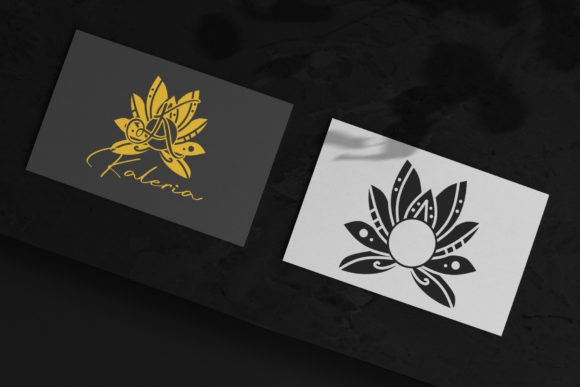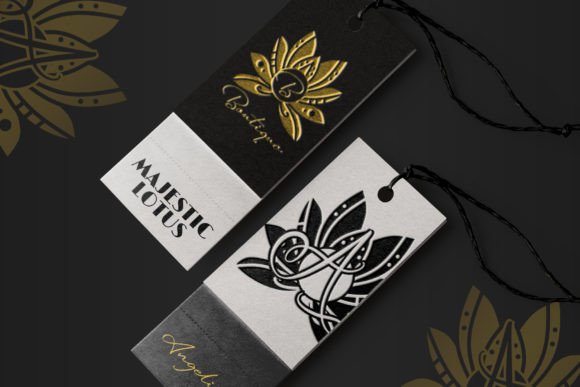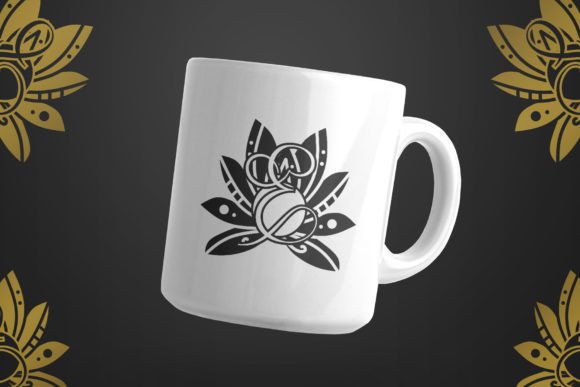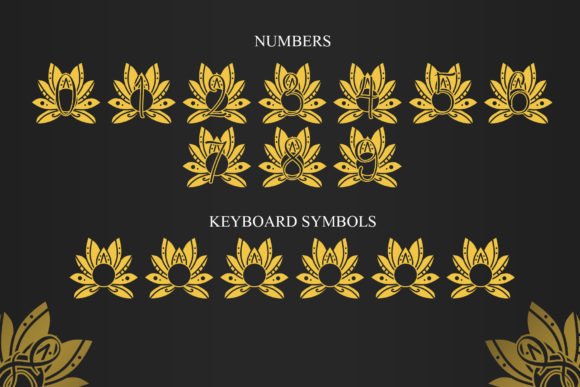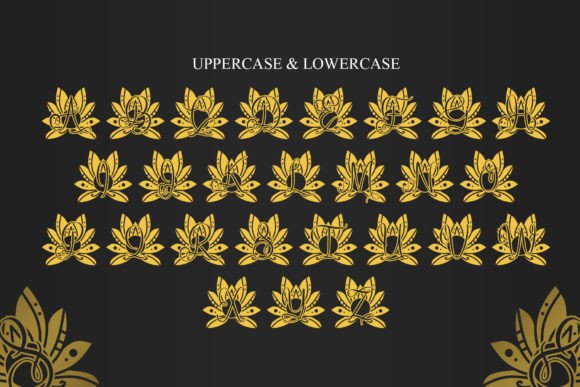
Introduction to Majestic Lotus Mandala Monogram Font Font
Fonts play a crucial role in design, and the Majestic Lotus Mandala Monogram Font font is a typeface that brings both character and versatility to any project. Whether you’re working on a branding project, a website, or a print design, the Majestic Lotus Mandala Monogram Font font offers a unique style that can elevate your work.
Majestic Lotus Mandala Monogram is a unique and stylish decorative font inspired by the elegance of the lotus flower.
Use it for your craft, logo, or anything you can think of .
Key Features of Majestic Lotus Mandala Monogram Font Font
Why Choose Majestic Lotus Mandala Monogram Font Font?
The Majestic Lotus Mandala Monogram Font font is more than just a typeface – it’s a design tool that helps you communicate your message with style and clarity. Its unique character set and versatile design make it suitable for a wide range of applications, from elegant invitations to bold headlines.
With its carefully crafted letterforms and balanced proportions, the Majestic Lotus Mandala Monogram Font font ensures readability and visual appeal across all mediums.
What makes Majestic Lotus Mandala Monogram Font font special?
The Majestic Lotus Mandala Monogram Font font stands out with its unique design, exceptional readability, and versatility across various design applications.